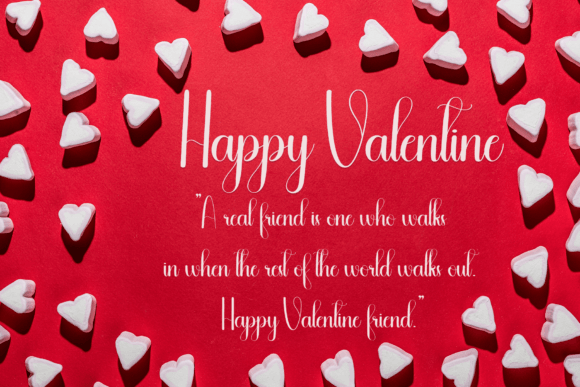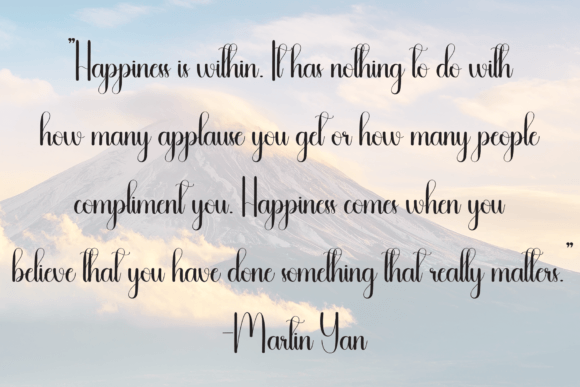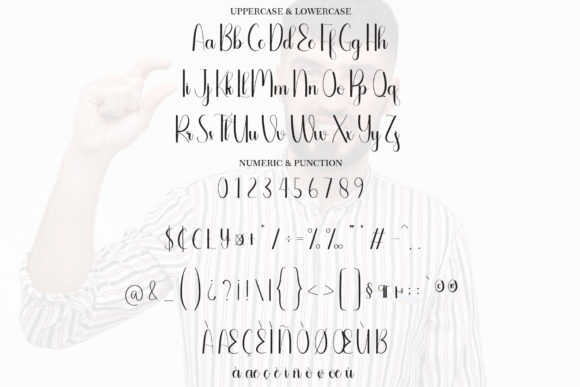
Introduction to Slight Font
As designers, we’ve all been there – staring at a blank canvas, struggling to find the perfect font to bring our creative project to life. But what if that perfect font was just a click away? Enter Slight Font, a charming and endearing handwritten font that’s sure to add a touch of warmth to any design.
Whether you’re crafting a wedding invitation, a birthday card, or a social media post, Slight Font is the ideal design resource to give your project a fun and playful twist. Its fresh and neat aesthetic makes it perfect for designers looking for a high-quality font to elevate their work.
Key Features of Slight Font
- High-quality design resource perfect for creative projects requiring a unique touch.
- Unique characteristics include a delicate, hand-drawn feel and intricate details that add a touch of elegance to any project.
Honest Review: Slight Font
I recently had the chance to work with the Slight Font, and I must say it’s been a delightful experience. As a designer, I’m always on the lookout for high-quality design resources to elevate my creative projects.
Here are some things that work well with the Slight Font:
- ✨ High-quality design: The font is crisp, clean, and looks amazing on screen.
- ✨ Easy to read: The font is clear and legible, even at smaller font sizes.
- ⚠️ Limited font weights: While the font looks great, there are only a few font weights to choose from.
- ⚠️ Not ideal for body text: Due to its elegant design, the font may not be the best choice for large blocks of body text.
Overall, I’m impressed with the Slight Font. While it may have a few limitations, its high-quality design and versatility make it a valuable addition to any designer’s toolkit.
Slight Font
Slight Font is a high-quality design resource ideal for creative projects. It features a transparent background, making it versatile for various applications.
Tips for Getting the Most Out of Slight Font
For optimal results, use Slight Font in conjunction with other design elements that complement its style. Experiment with different font sizes and colors to enhance the overall visual appeal.
Alternatives to Slight Font
Montserrat is a sans-serif font known for its clean and modern design. It’s perfect for creative projects where a high-quality font is required. Montserrat is free to download and offers a transparent background, making it ideal for designing logos and branding materials. When to use: Use Montserrat for modern and sleek designs that require a clean and minimalist aesthetic.
Montserrat compares to Slight Font as it offers a more modern and sophisticated design, making it suitable for creative projects that require a high level of professionalism. However, Slight Font has a more subtle and delicate feel, making it ideal for designs that require a softer touch.
Lato is a sans-serif font that offers a high level of readability and versatility. It’s perfect for designing websites, mobile apps, and other digital products. Lato is free to download and offers a transparent background, making it ideal for designing creative projects that require a high level of professionalism. When to use: Use Lato for designs that require a high level of readability and a modern aesthetic.
Lato compares to Slight Font as it offers a more modern and bold design, making it suitable for creative projects that require a high level of energy and dynamism. However, Slight Font has a more subtle and delicate feel, making it ideal for designs that require a softer touch.